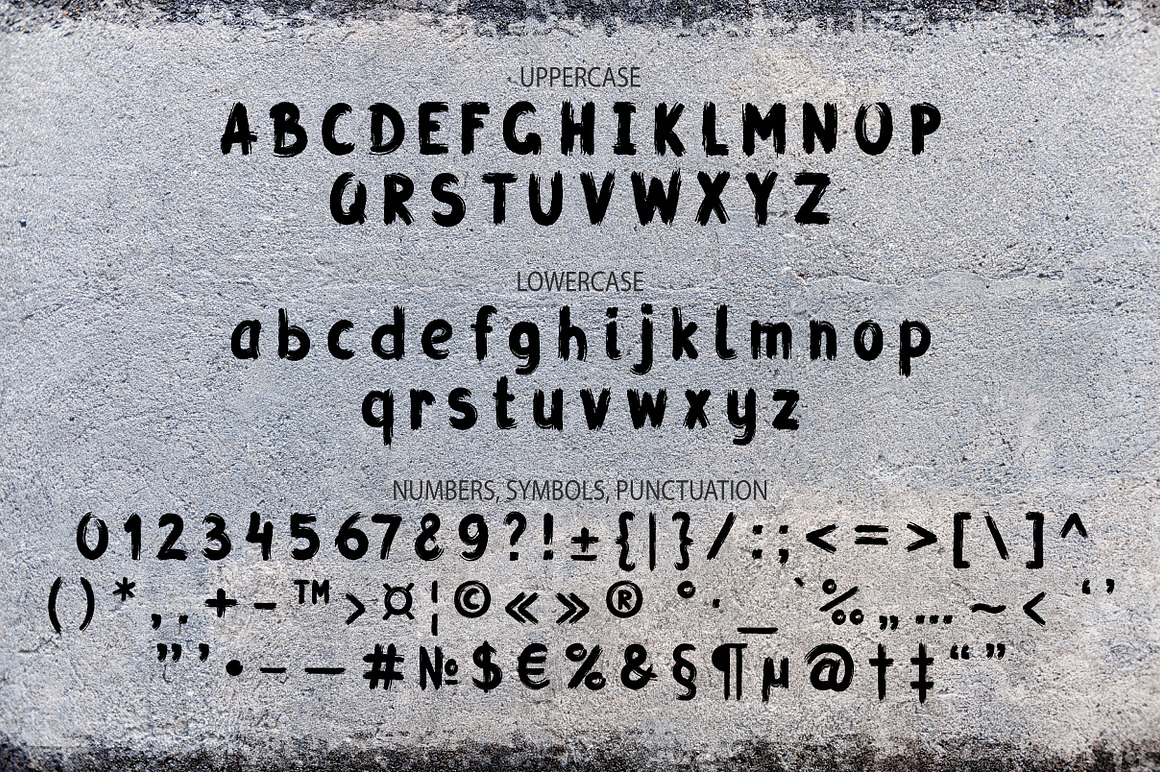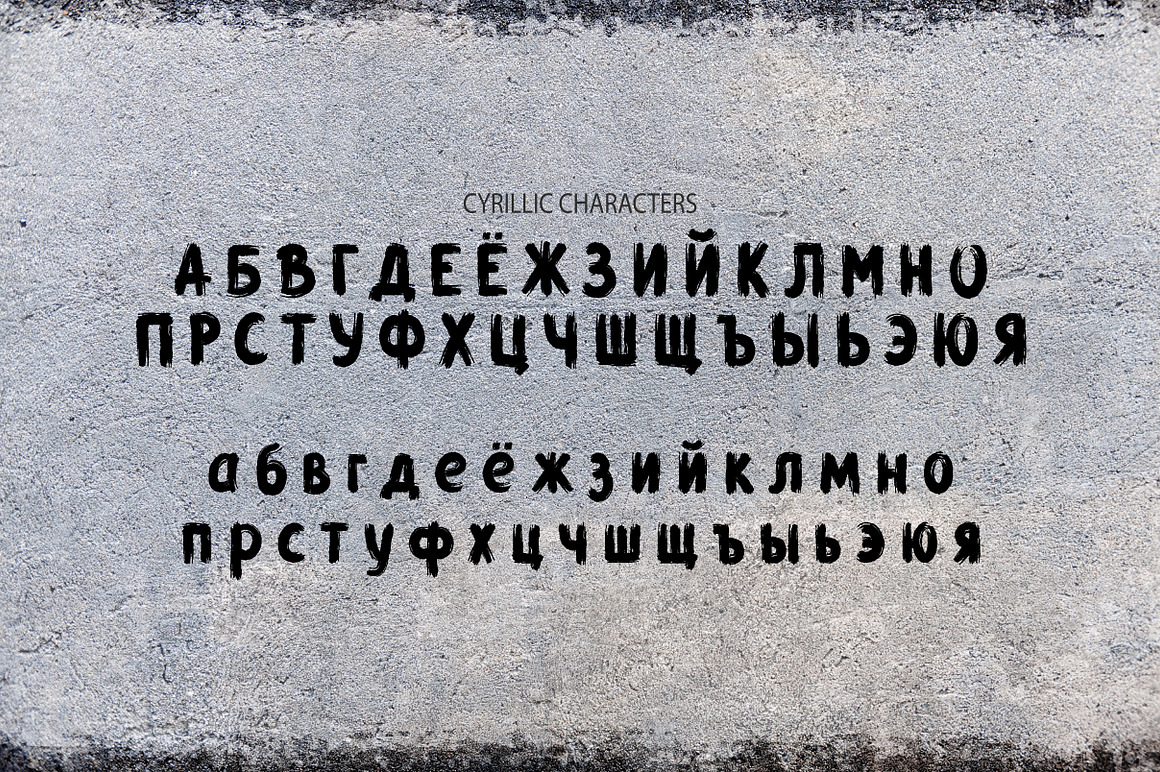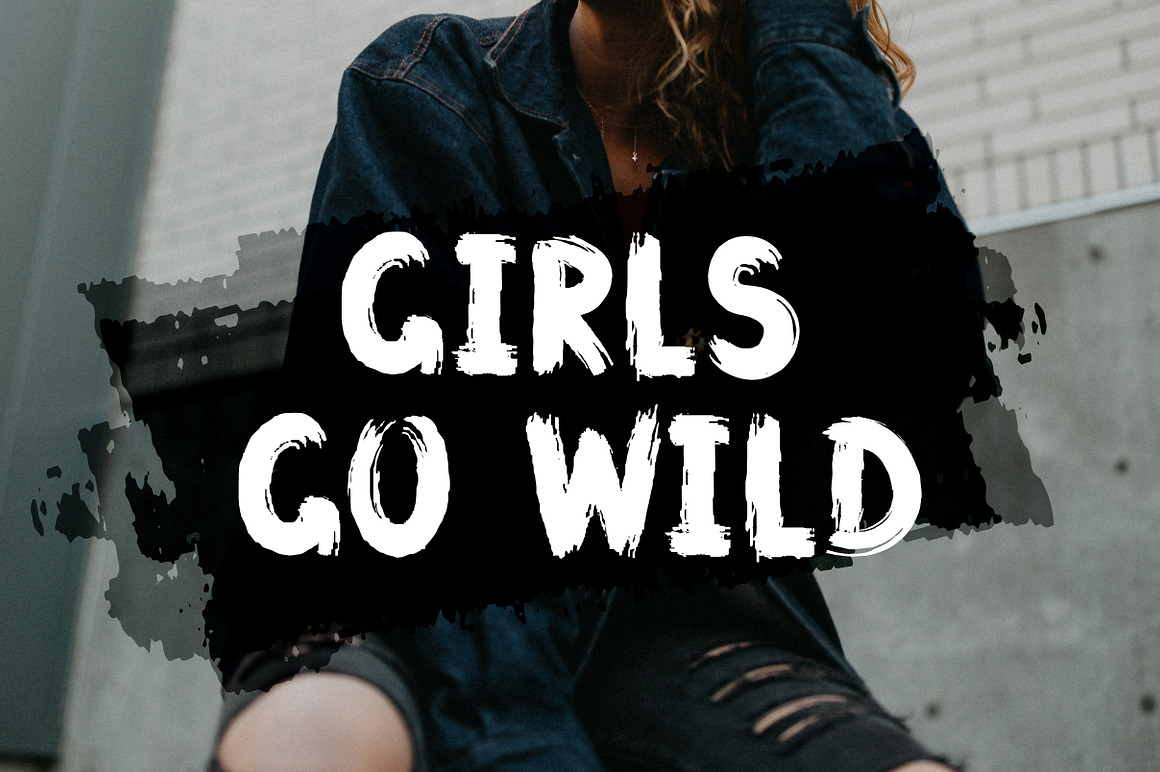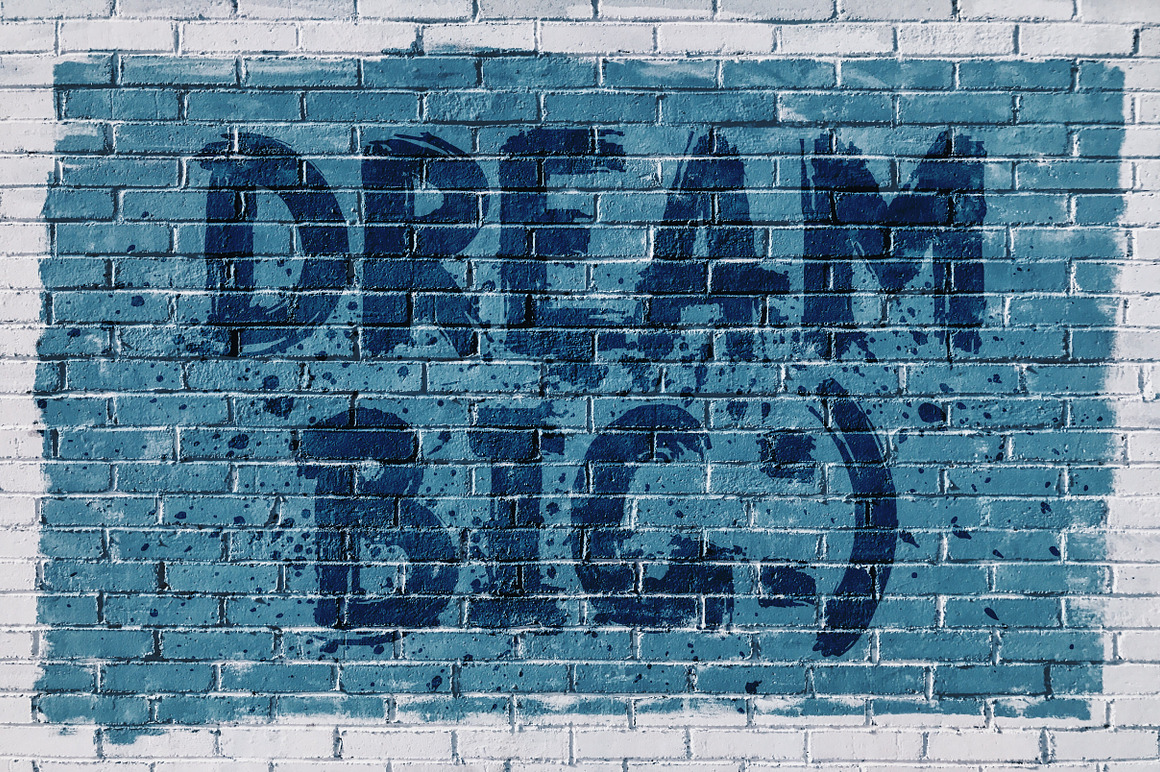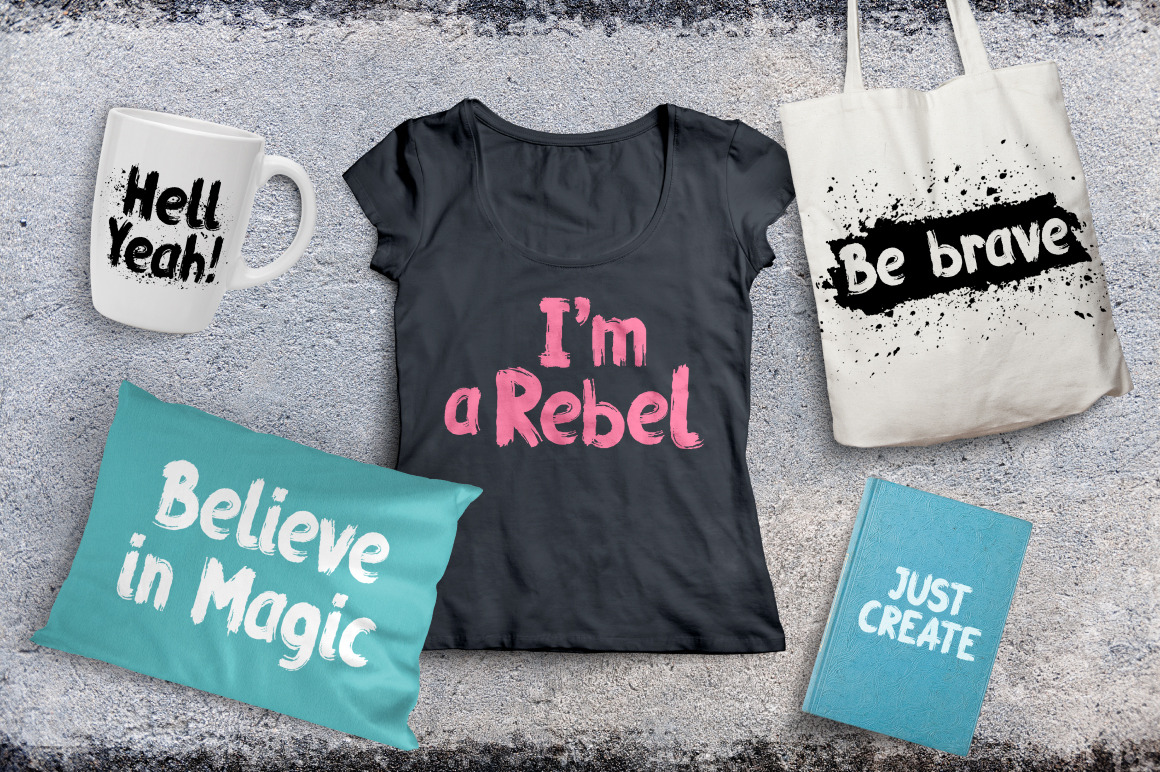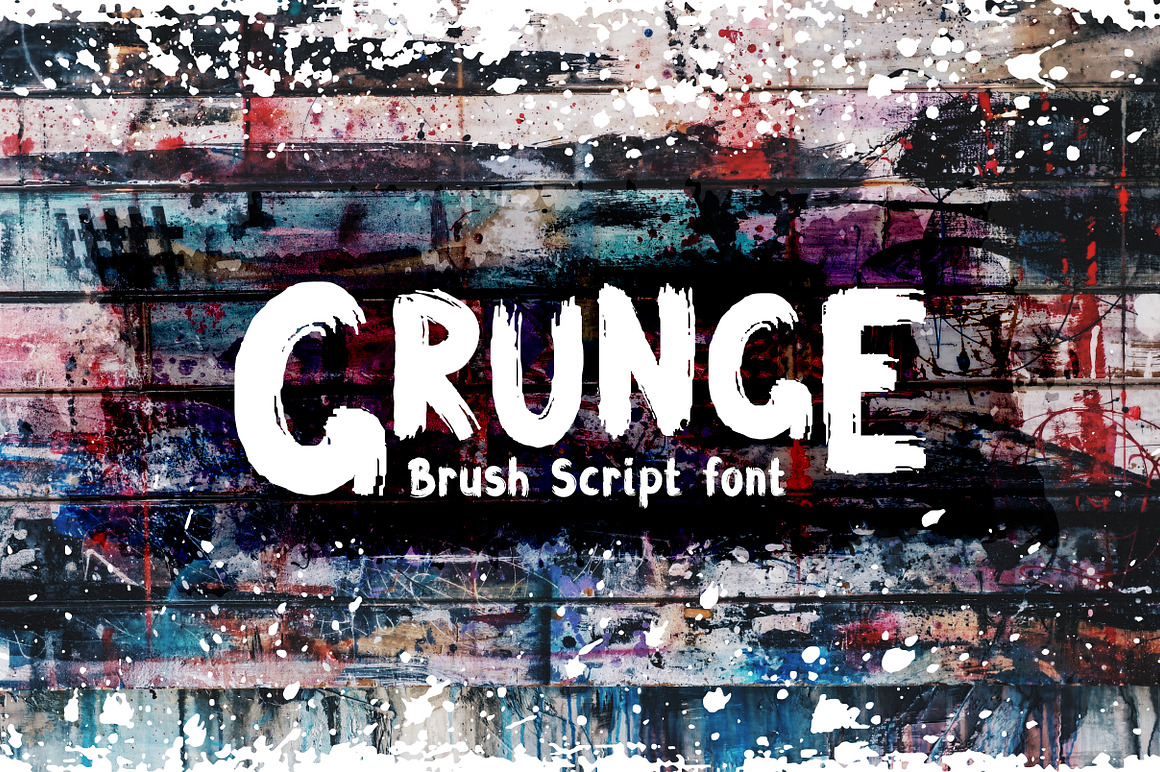
Grunge Latin and Cyrillic Brush Font
Grunge Latin and Cyrillic Brush Font is perfect for alternative music posters, underground magazine designs, street art graphics, indie band logos, skateboard branding, urban fashion labels, rebellious marketing campaigns, punk rock aesthetics, edgy social media content, and counterculture artistic projects.
What makes Grunge Latin and Cyrillic Brush Font so exciting is its raw artistic energy that captures authentic street culture aesthetics while providing comprehensive multilingual support for international underground movements. This powerful typeface combines rebellious character with technical excellence, delivering typography that speaks the language of authentic rebellion.
The Grunge Latin and Cyrillic Brush Font family includes regular and bold weights with complete Latin and Cyrillic character sets, featuring distressed brush textures, organic variations, and authentic grunge elements that perfectly replicate hand-painted street art aesthetics.
The dynamically textured letterforms of Grunge Latin and Cyrillic Brush Font showcase authentic brush stroke characteristics with organic imperfections that create genuine street art appeal. Each character displays careful attention to maintaining the rebellious energy of hand-painted graffiti while ensuring readability across both Latin and Cyrillic scripts. The font's distressed textures and natural variations contribute to its authentic underground aesthetic and powerful visual impact.
Alternative brands and counterculture designers consistently choose Grunge Latin and Cyrillic Brush Font for projects requiring authentic rebellious character and international appeal. The comprehensive character set includes proper diacritical marks, currency symbols, and specialized punctuation for all supported languages, ensuring professional results in complex multilingual underground design applications.
The versatile rebellion of Grunge Latin and Cyrillic Brush Font makes it equally effective across traditional print and modern digital platforms. Whether developing international music festival branding, creating multilingual street art campaigns, or designing global underground marketing materials, this remarkable typeface delivers consistent authenticity that resonates with rebellious audiences worldwide.